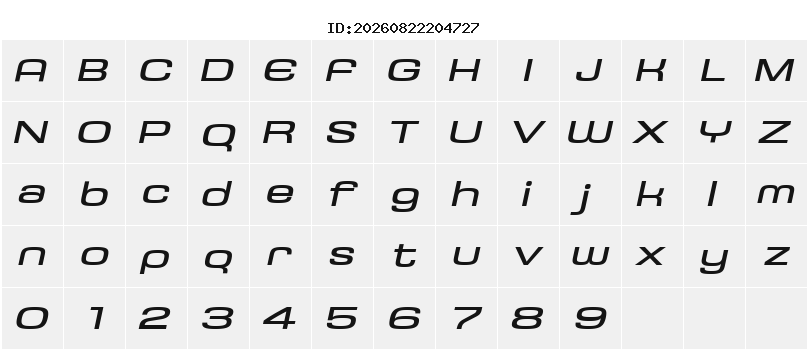
About Saturn-ExtendedItalic.ttf
Saturn-ExtendedItalic.ttf is a modern, elegant sans-serif font designed for ultimate readability and visual harmony. Perfect for branding, headlines, web design, and print materials.